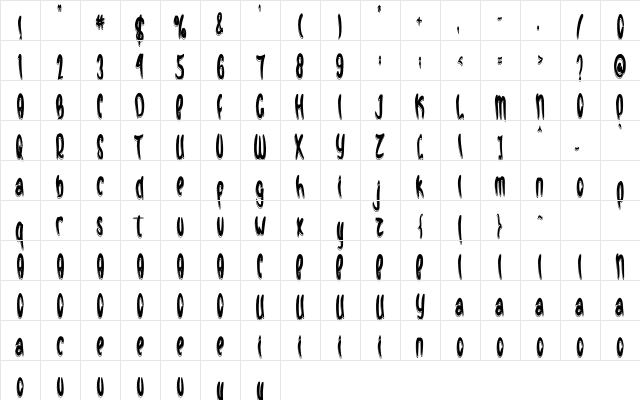
Kimmonoro Horror Regular
Design Context for Kimmonoro Horror Typeface
Kimmonoro Horror leans into the macabre with letterforms designed to disturb and intrigue in equal measure.
Ideal for Halloween projects, horror film titles, haunted house signage, and dark editorial design.
Font Pairing: Pair with a clean neutral sans-serif for body copy to let Kimmonoro Horror's character lead without overwhelming the composition.
Pro Tip: Kimmonoro Horror works best as a headline or focal element. Pair it against plain, neutral body text to amplify the contrast.